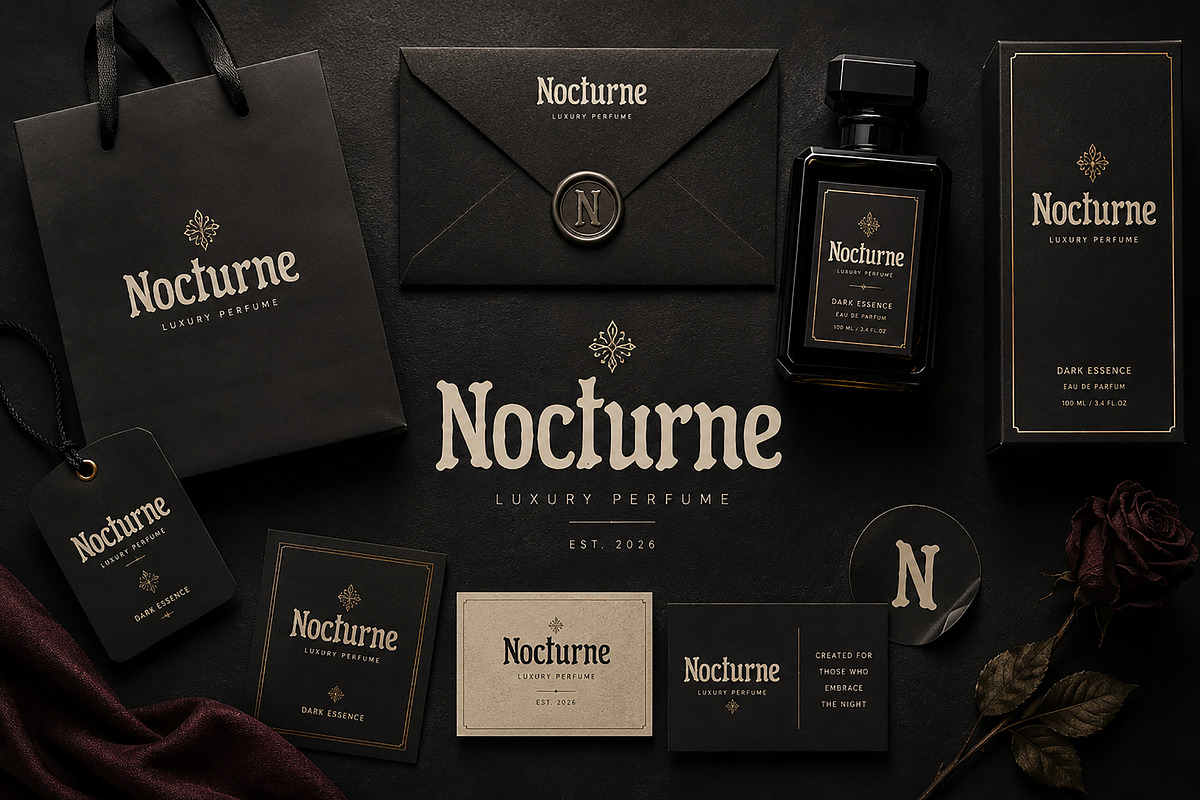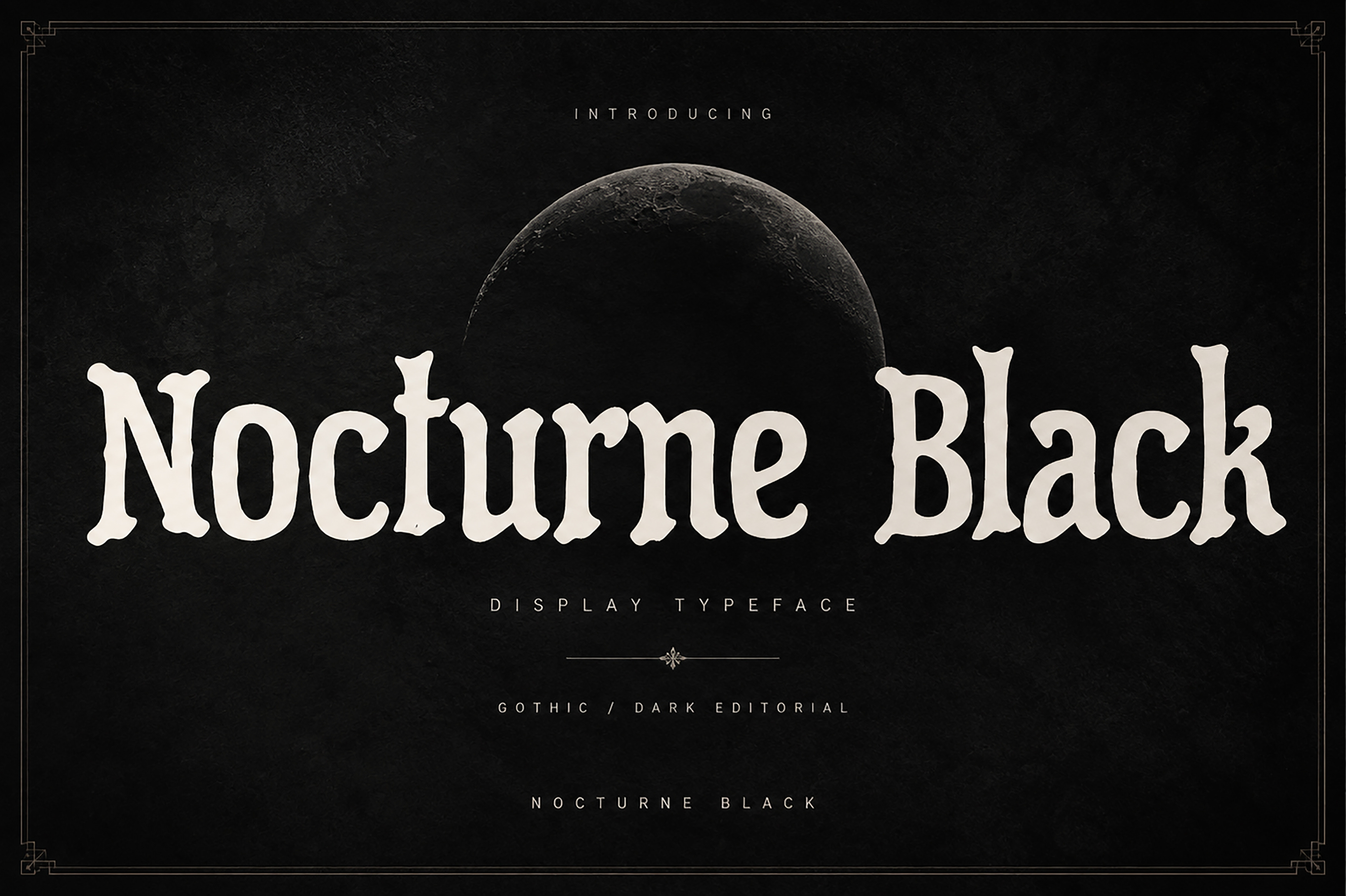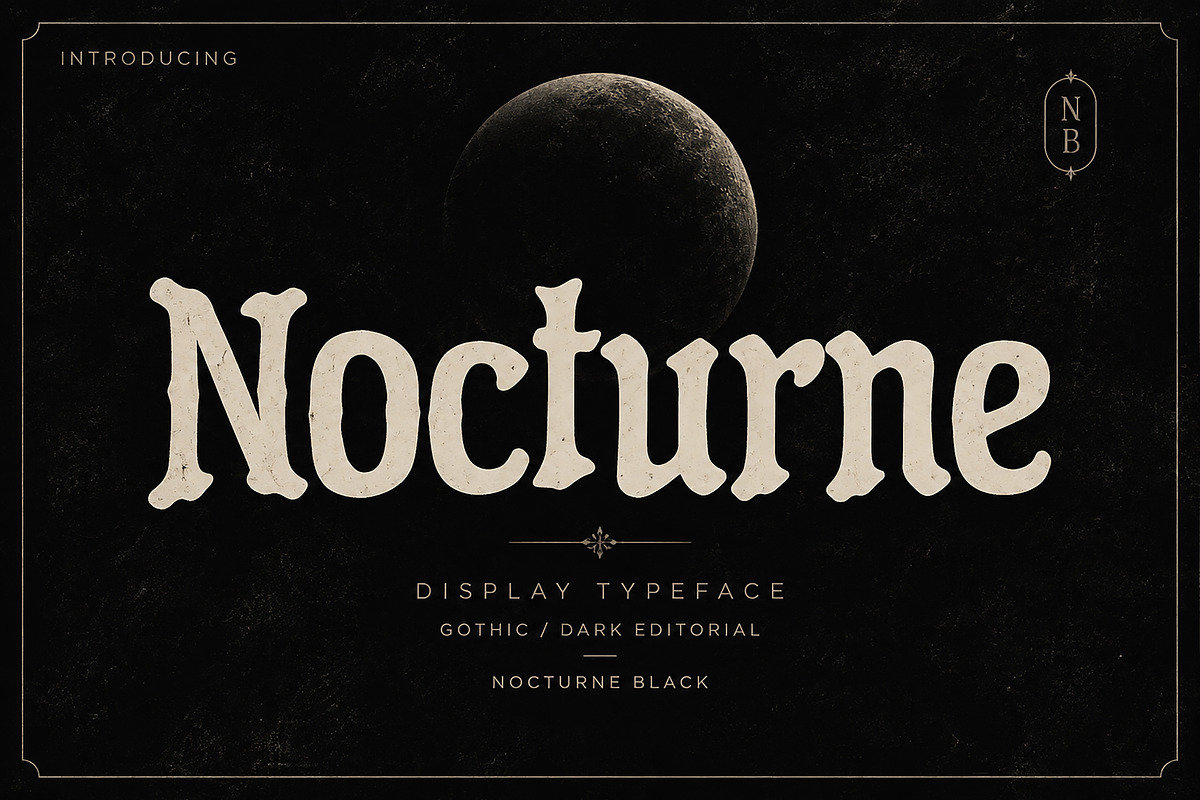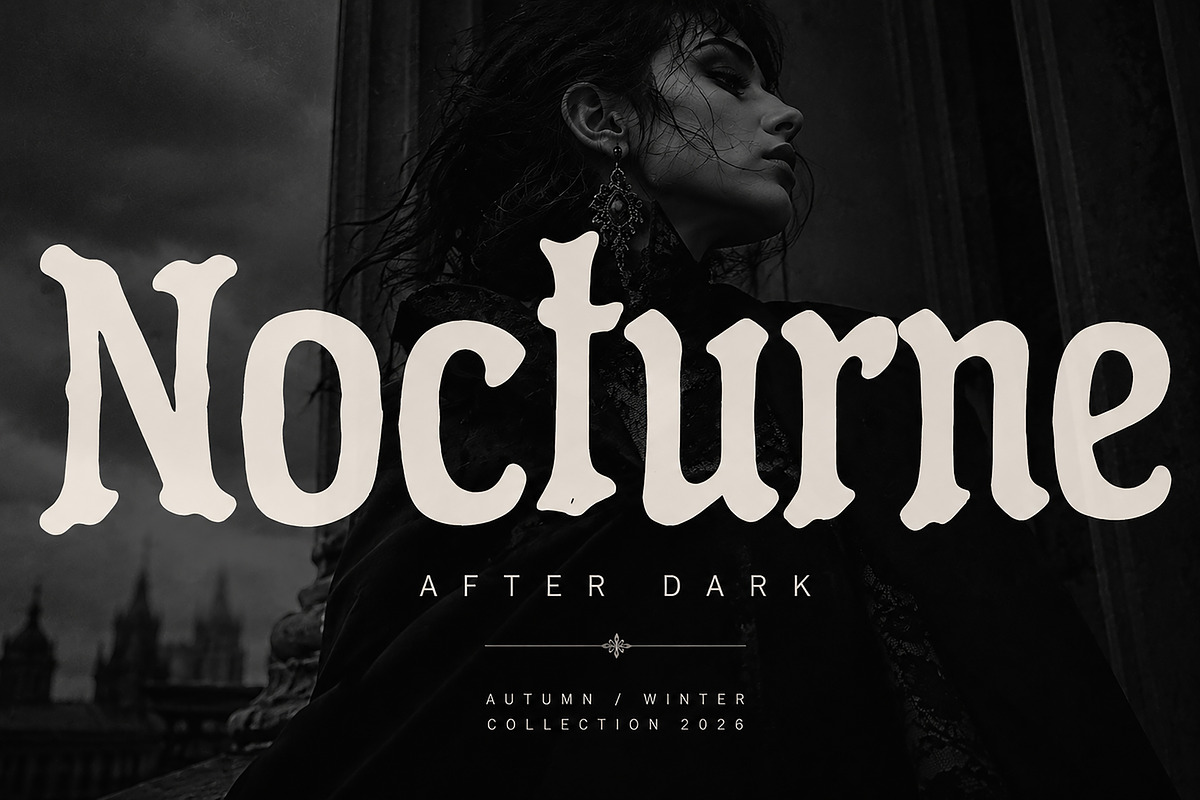
Nocturne Black – Gothic Display Font
Nocturne Black is a bold and dramatic gothic display typeface designed to bring a dark, elegant, and distinctive character to your creative projects.
With its expressive letterforms and strong visual presence, Nocturne Black is perfect for designs that need a mysterious, vintage, luxurious, or alternative aesthetic. Its striking style works especially well for branding, posters, editorial designs, fashion campaigns, album artwork, packaging, labels, merchandise, and other display-focused projects.
Gothic & dark branding
Luxury fashion designs
Editorial & magazine layouts
Posters & promotional artwork
Album & music artwork
Product packaging
Labels & badges
Fashion campaigns
Merchandise & apparel graphics
Logos & brand concepts
Event invitations
Creative advertising
Bold Gothic display style
Dramatic and distinctive letterforms
Strong visual impact at large sizes
Ideal for headlines and display typography
Suitable for both digital and print projects
Designed for creative branding and editorial applications
Nocturne Black is a display typeface created for designers, creatives, and brands looking for a bold gothic aesthetic with a refined and memorable visual presence.